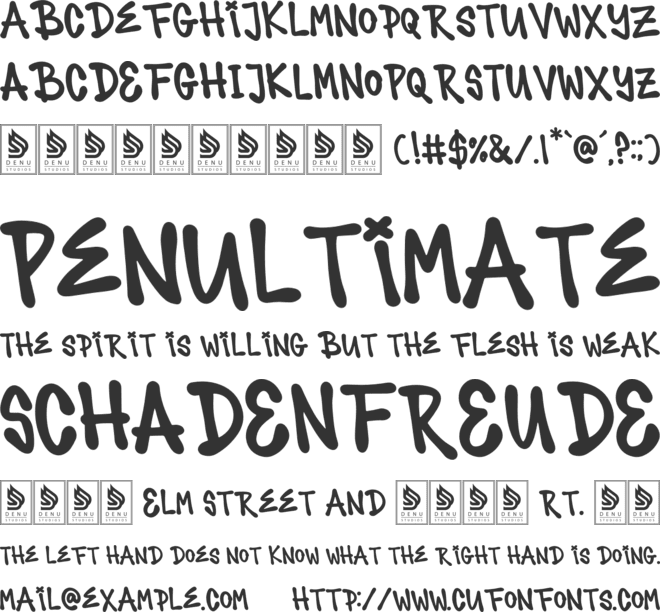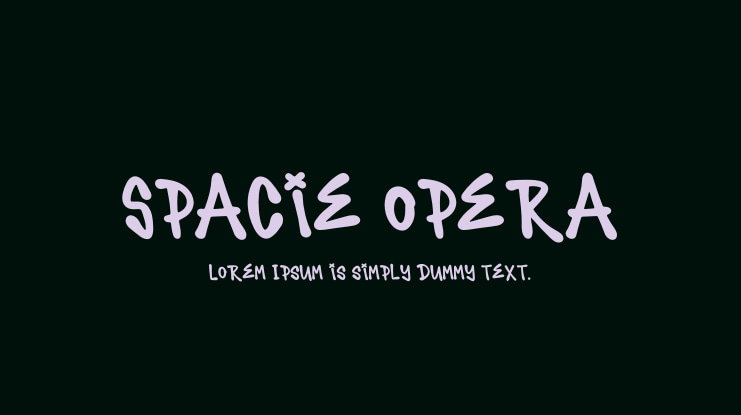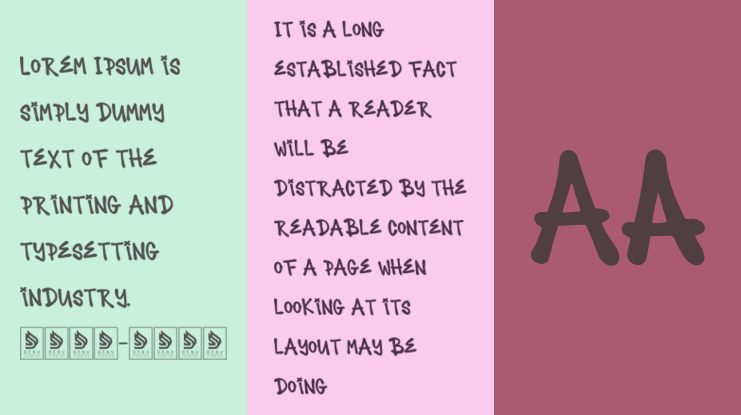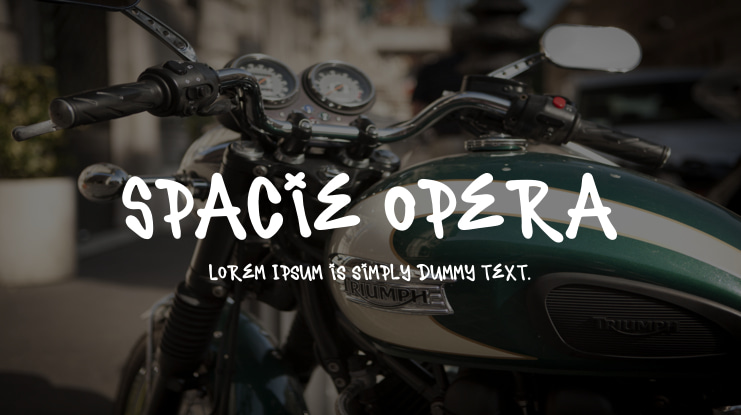
Spacie Opera Font
Spacie Opera | Graffiti Typeface is ideal for various projects such as logos, branding, homeware designs, product packaging, mugs, quotes, posters, shopping bags, t-shirts, book covers, name cards, invitation cards, greeting cards, labels, photography, watermarks, special events, and any other projects where a graffiti-style typeface is desired.